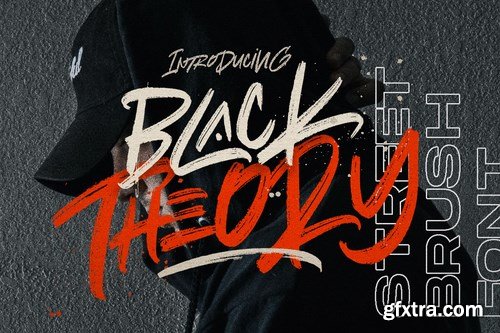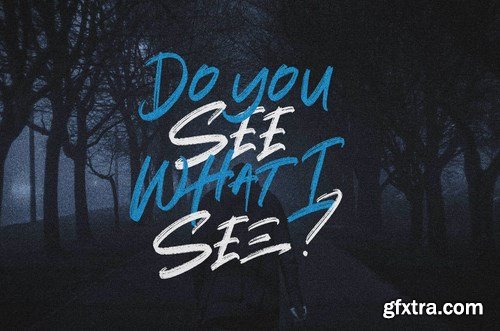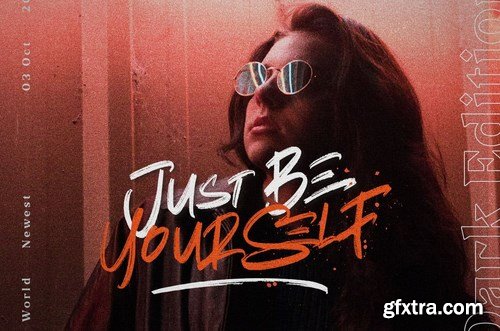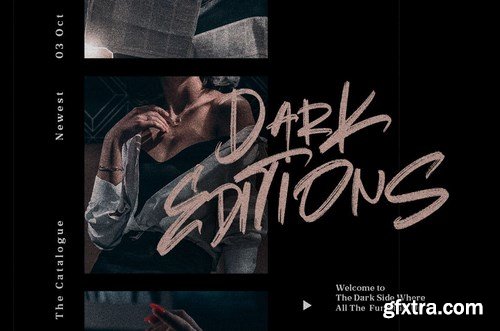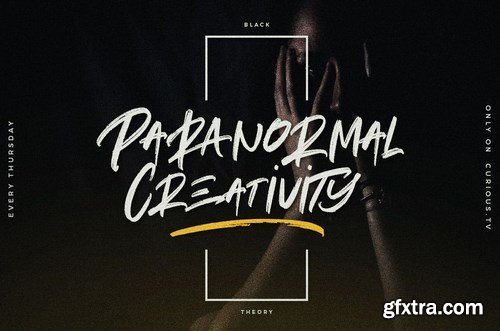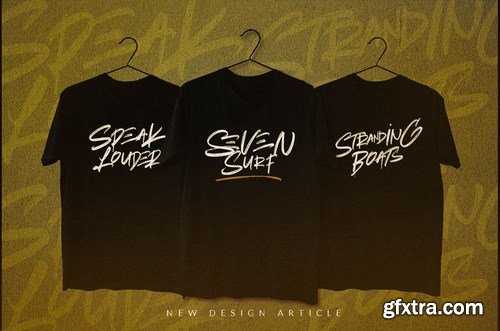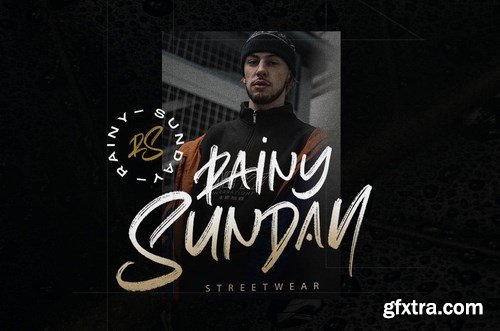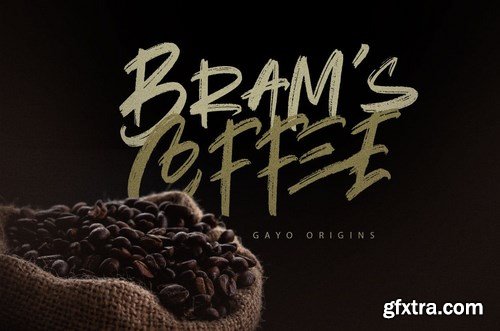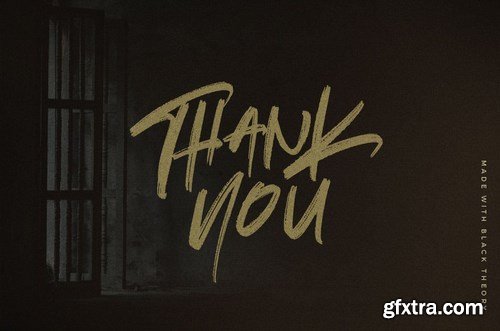
DETAILS Black Theory Brush is Stylist Brush font with a real hand-painted wet brush look. Ideal for signature, logos, handwritten quotes, product packaging, header, poster, merchandise, social media & greeting cards.